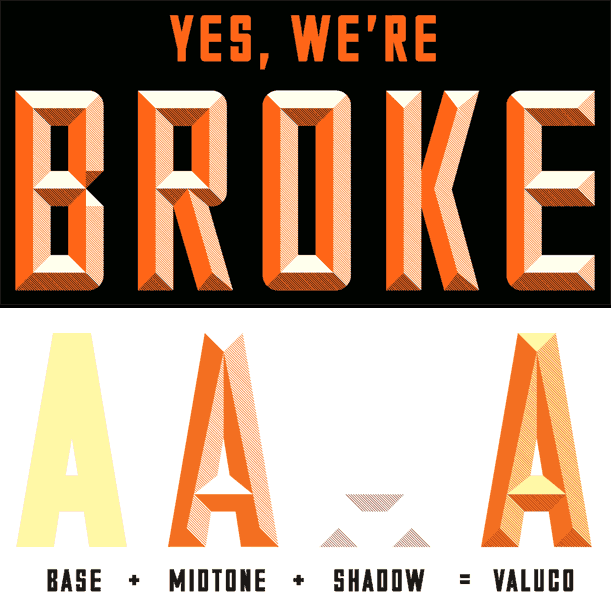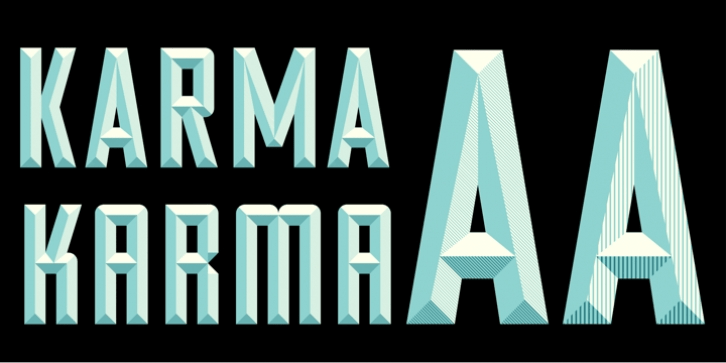
Valuco
Font Family by Aesthetic Apparatus
Valuco is a decorative sans serif family with a distinctly retro, Art Deco-leaning attitude. Its layered construction gives it a bold display presence, balancing clean geometric forms with dimensional detail that feels graphic, stylized, and made to stand out.
The family includes 5 styles: Valuco Base, Valuco Midtone Coarse, Valuco Shadow, and Valuco Shadow Coarse. That mix makes it especially useful for layered headlines, logo concepts, packaging, posters, signage, and other branding work where you want depth and visual texture without losing a crisp, structured look.
Created by Aesthetic Apparatus, this family suits projects that call for vintage flavor with a sharper, more design-driven edge. It’s a strong choice for display settings that benefit from character, contrast, and a built-in sense of movement.